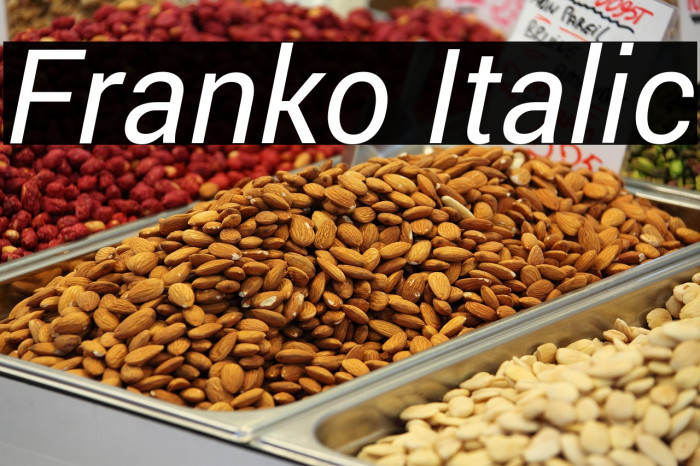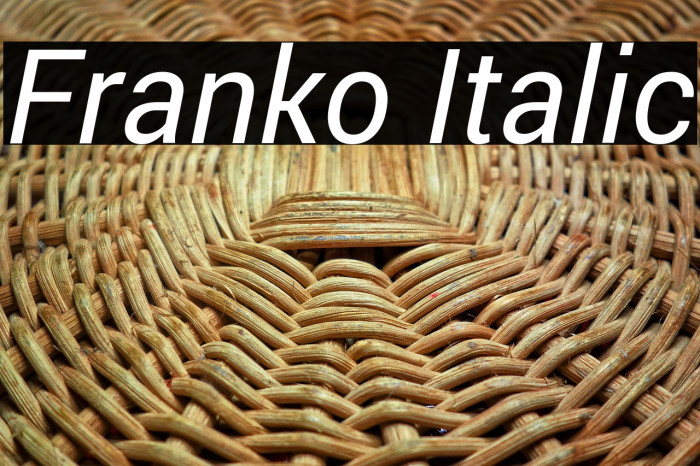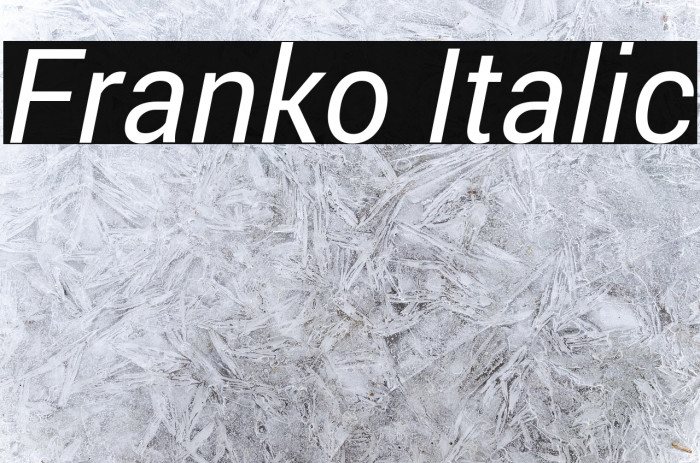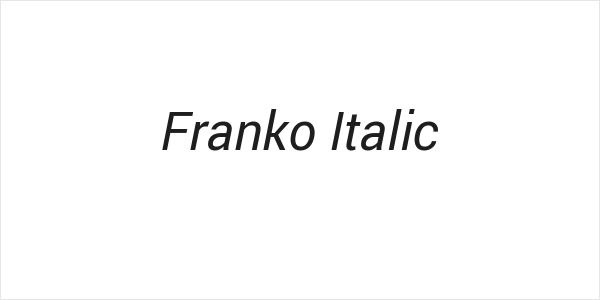
Franko Italic Font
Franko Italic Description
This font exhibits a sleek and modern italic style, characterized by its slanted and streamlined appearance. The letters are slightly elongated, giving a sense of motion and elegance. The strokes are consistent, with a medium contrast that adds to its readability while maintaining a stylish flair. The overall design is clean and uncluttered, making it suitable for a variety of applications. The numerals and special characters are well-integrated, maintaining the font's cohesive look. Its contemporary aesthetic makes it versatile for both digital and print media.
| Proposed Projects | Ideal for branding, advertising, editorial design, and digital interfaces. |